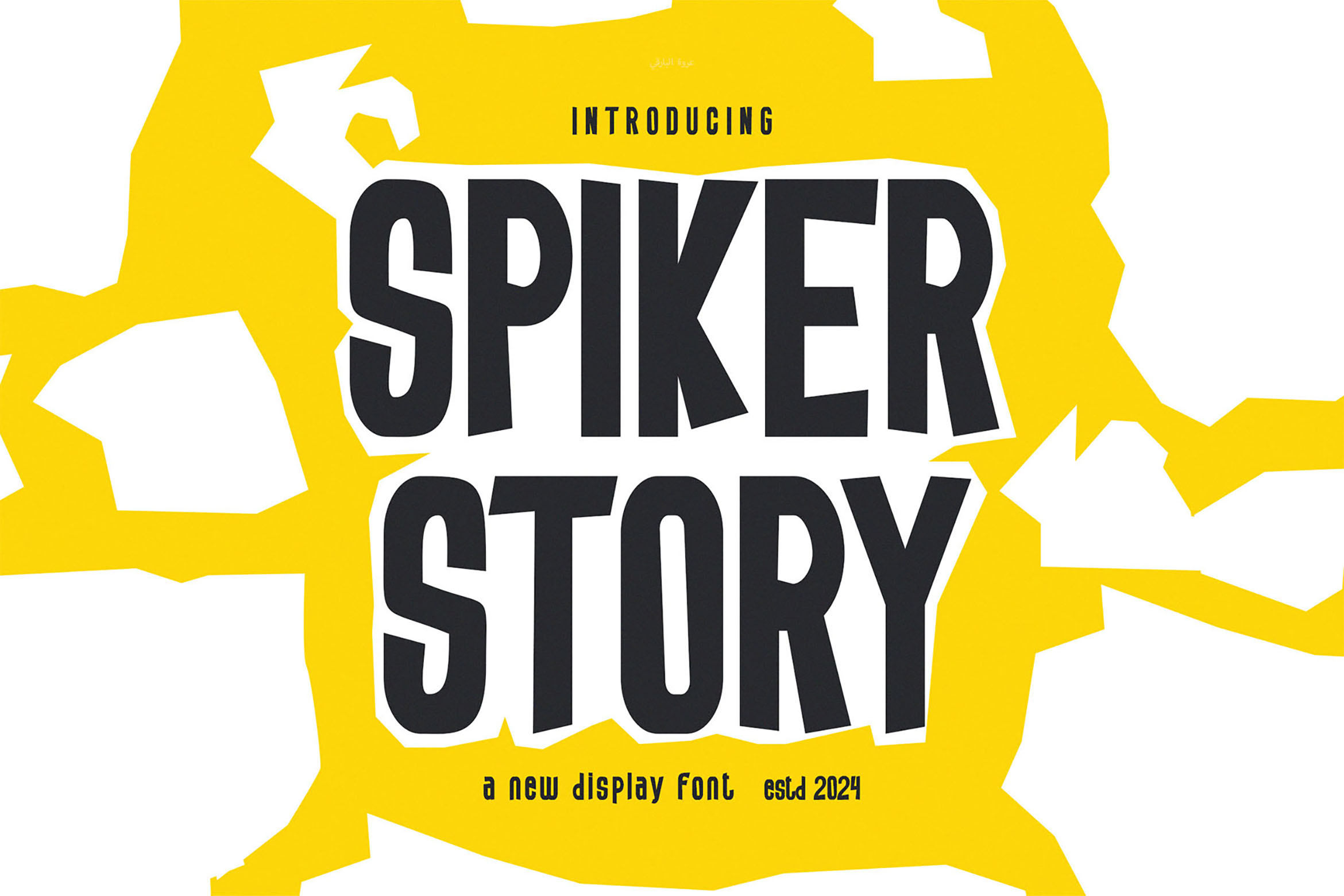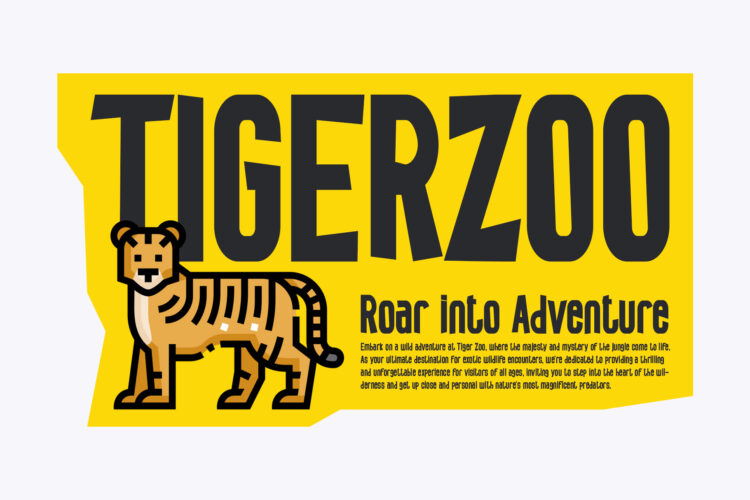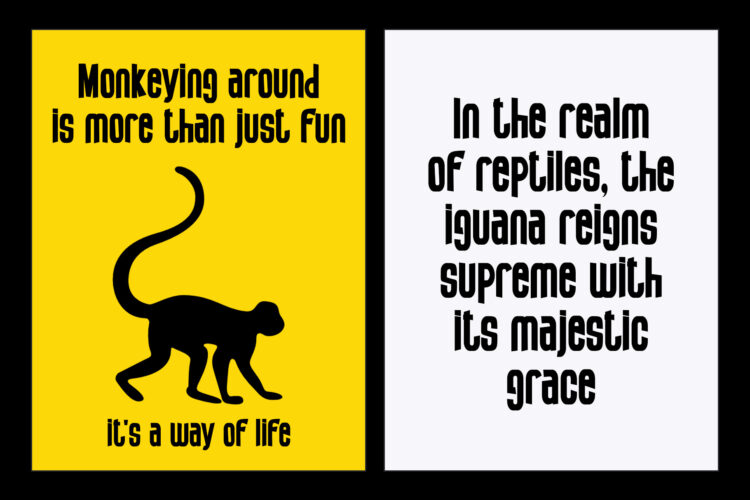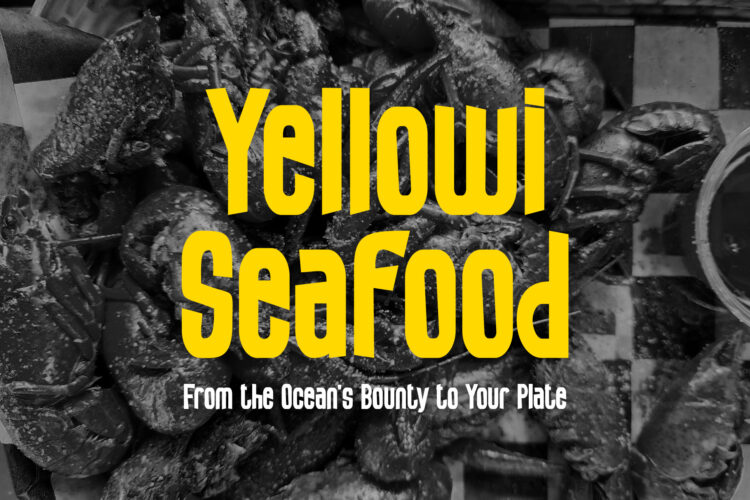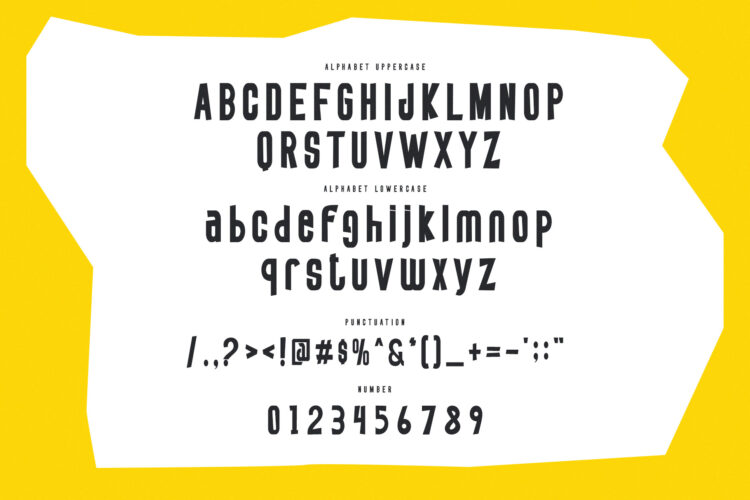
Introducing our new Spiker Story cute and simple font this is perfect for branding, logos, invitation, magazines, product packaging and more.
Spiker Story – Cute Display Font